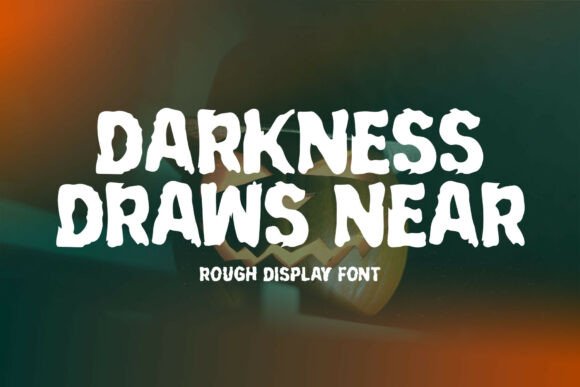
Unleash the Power of Darkness: A Comprehensive Guide to the Darkness Draws Near Font
In the realm of typography, few fonts manage to evoke the same level of intensity and grit as the Darkness Draws Near font. This rugged display font is designed to bring a raw, dramatic touch to any project, making it perfect for designs that require a bold and striking visual impact. In this article, we’ll delve into the world of Darkness Draws Near, exploring its features, uses, and benefits, as well as provide tips on how to make the most of this incredible font.
What is Darkness Draws Near Font?
Darkness Draws Near is a display font that boasts an intense, gritty personality. Its rugged and bold design makes it an ideal choice for projects that require a strong visual statement. Whether you’re looking to create a logo, design apparel, or craft a poster, this font is sure to deliver a striking impact. Its versatility extends to various applications, including album covers, web headers, flyers, and print materials.
Key Features of Darkness Draws Near Font
So, what sets Darkness Draws Near apart from other fonts? Here are some of its key features:
- PUA Encoding: This font is PUA (Private Use Area) encoded, allowing for effortless access to all glyphs, swashes, and alternate characters. This means you can easily navigate and select from a wide range of characters to create unique and customized designs.
- Rugged and Bold Design: The Darkness Draws Near font features a rugged and bold design that exudes intensity and grit. Its raw, dramatic touch is perfect for dark-themed designs or bold branding.
- High Versatility: This font is suitable for various applications, including logos, apparel, posters, flyers, album covers, web headers, and print materials.
Uses of Darkness Draws Near Font
The Darkness Draws Near font is an excellent choice for a wide range of projects, including:
- Logo Design: Create a bold and striking logo that makes a lasting impression with Darkness Draws Near.
- Apparel Design: Add a raw, edgy touch to your apparel designs with this rugged font.
- Poster and Flyer Design: Make your posters and flyers stand out with the Darkness Draws Near font’s intense, gritty personality.
- Album Cover Design: Create a dramatic and eye-catching album cover with this font’s bold and rugged design.
- Web Headers and Print Materials: Use Darkness Draws Near to add a touch of intensity and grit to your web headers and print materials.
Benefits of Using Darkness Draws Near Font
So, why choose Darkness Draws Near over other fonts? Here are some benefits of using this incredible font:
- Unique and Customizable: With PUA encoding, you can easily access a wide range of glyphs, swashes, and alternate characters to create unique and customized designs.
- Time-Saving: The Darkness Draws Near font is designed to be versatile and adaptable, saving you time and effort in finding the perfect font for your project.
- High-Quality Design: This font is crafted with attention to detail, ensuring a high-quality design that will elevate your projects.
- Easy to Use: The Darkness Draws Near font is easy to use and integrate into your designs, making it perfect for designers of all levels.
Tips for Using Darkness Draws Near Font
To get the most out of the Darkness Draws Near font, here are some tips to keep in mind:
- Experiment with Different Characters: Take advantage of the font’s PUA encoding and experiment with different glyphs, swashes, and alternate characters to create unique designs.
- Pair with Complementary Fonts: Pair Darkness Draws Near with complementary fonts to create a harmonious and balanced design.
- Adjust Font Size and Style: Experiment with different font sizes and styles to find the perfect combination for your design.
- Use in Combination with Images: Combine the Darkness Draws Near font with images to create a striking and visually appealing design.
In conclusion, the Darkness Draws Near font is a powerful and versatile font that can elevate your designs to new heights. Its rugged and bold design, combined with its PUA encoding and high versatility, make it an excellent choice for a wide range of projects. By following the tips outlined in this article, you can unlock the full potential of Darkness Draws Near and create striking, memorable designs that leave a lasting impression.